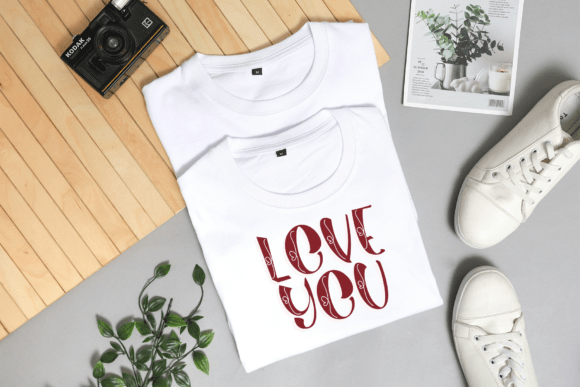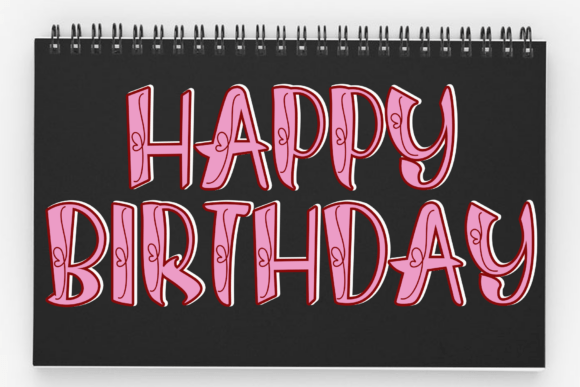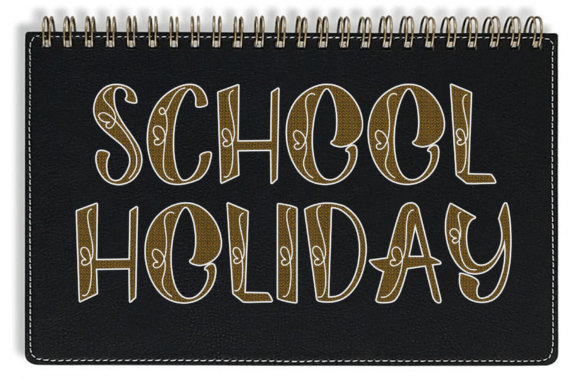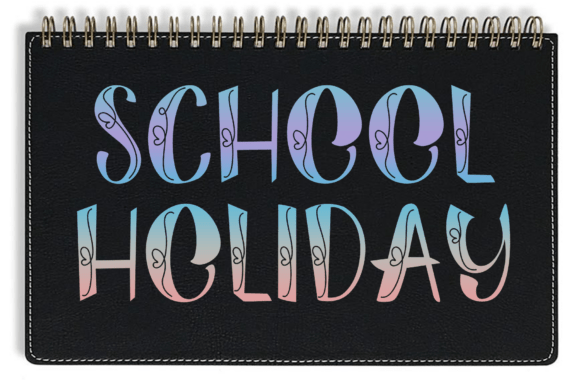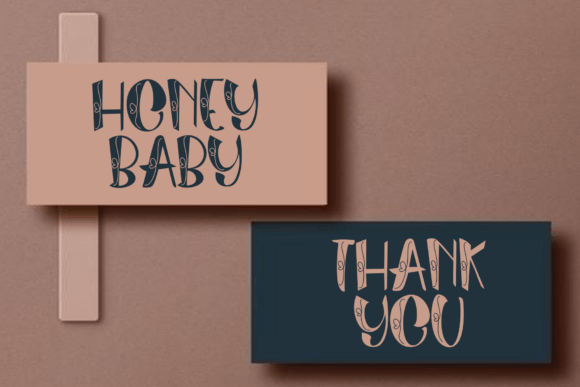
Introduction to Honey Baby Font
Have you ever found yourself scrolling through a font gallery, searching for the perfect match for your next creative project? Maybe it’s a wedding invitation, a birthday card, or a romantic poem. Whatever the project, the right font can make all the difference. For me, that font is often the Honey Baby Font, a charming handwritten script that never fails to capture the essence of love and romance.
As a design resource, the Honey Baby Font is a high-quality addition to any creative library. Its playful heart details and tall, stylish letters make it a standout choice for any project that needs a sweet, personal touch. And the best part? This font is available for free download, perfect for designers on a budget or those who simply want to explore new design options.
Key Features of Honey Baby Font
- High-quality design resource perfect for creative projects, offering a unique and playful touch.
- Designed with a cute and endearing aesthetic, ideal for projects targeting a younger audience or those with a sweet, nostalgic tone.
- Unique characteristics include a rounded, childlike appearance and a limited color palette, adding to its charm and character.
- Perfect for designers seeking a high-quality, free design resource that can elevate their creative project with a touch of whimsy and personality.
Honest Review: Honey Baby Font
I recently stumbled upon the Honey Baby Font and was excited to give it a try for my latest creative project. As a designer, I’m always on the lookout for high-quality design resources that can elevate my work.
Here are some of the things that work well with the Honey Baby Font:
- Its playful and whimsical style is perfect for adding a touch of personality to your design.
- The font is incredibly versatile and can be used for a wide range of creative projects, from wedding invitations to children’s book illustrations.
Overall, I’m impressed with the Honey Baby Font and would definitely recommend it for personal projects or design enthusiasts. While it may have some limitations, its unique style and versatility make it a valuable addition to any designer’s toolkit.
The Honey Baby Font is a versatile font that can be used in a variety of creative projects, such as:
- Infographics and presentations
To get the most out of the Honey Baby Font, try pairing it with other fonts to create a unique design effect. You can also experiment with different font sizes, colors, and styles to add visual interest to your design.